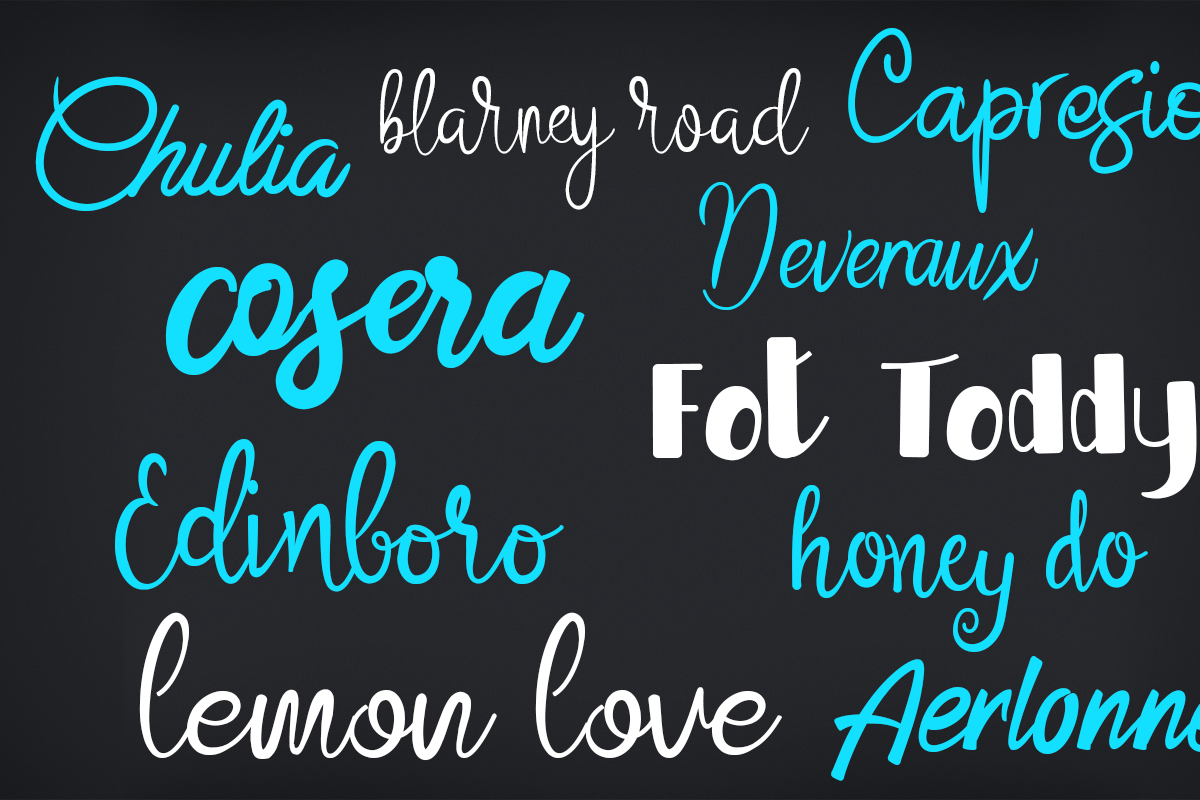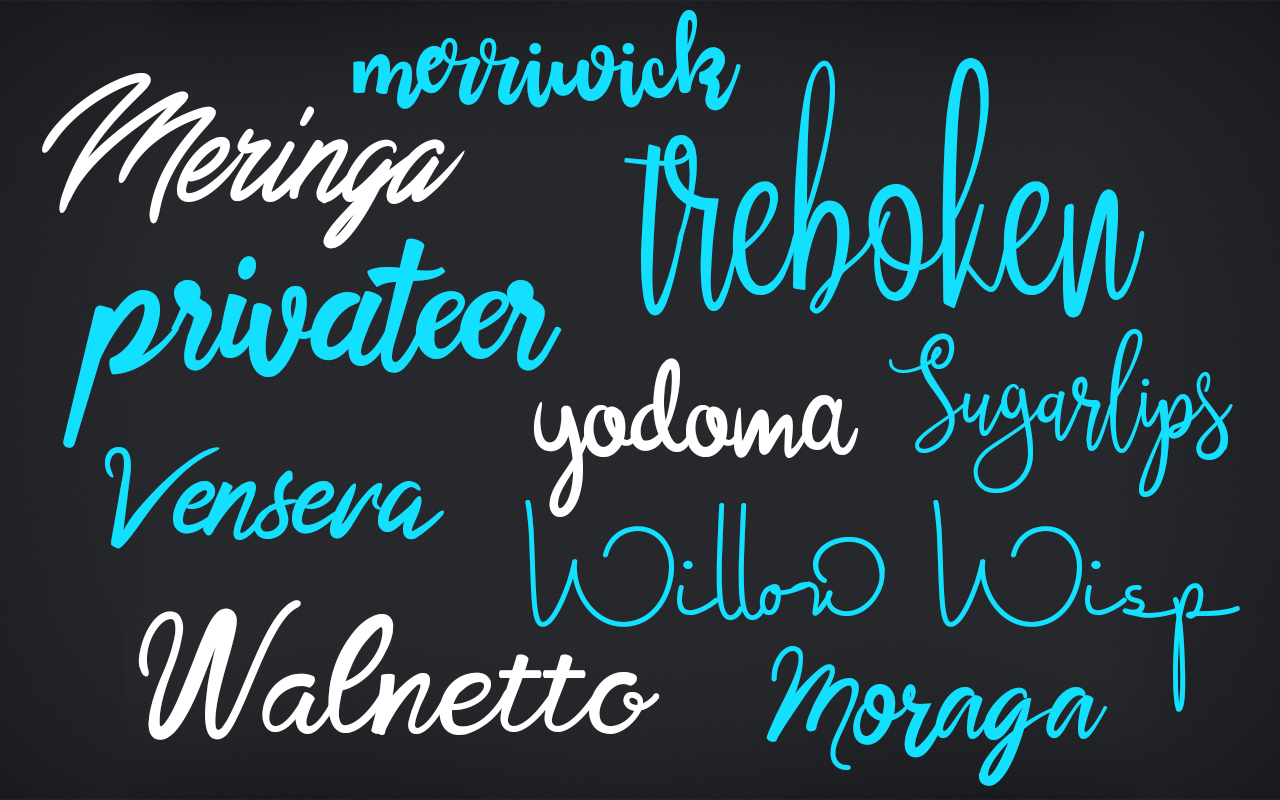
20 Script Fonts
Spruce up a creative project with 20 unique fancy fonts!
This collection of cursive, script and elegant styled fonts adds the perfect touch to party invitations, websites, advertisements, posters or any other design project. All fonts are in OpenType font format so they work on both Mac and PC; and include a 10 computer, commercial use license. International character support (Western European) is standard for every font.
These fonts are different from our other font collections (we never overlap or duplicate our fonts in any of our free or paid collections) and are an excellent addition to any font collector’s library for use in graphic and logo design, web design, scrapbooks, presentations, invitations, promotional material, advertisements, and more.
- 20 unique fonts
- Perfect for presentations, logos, business cards, invitations, websites, advertisements, brochures, holidays, weddings, application development and more